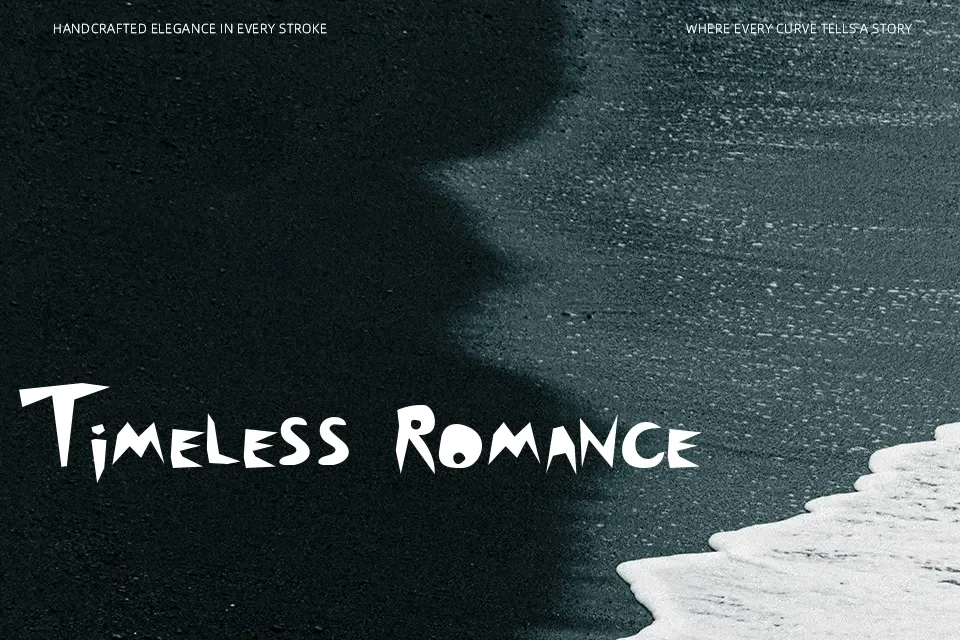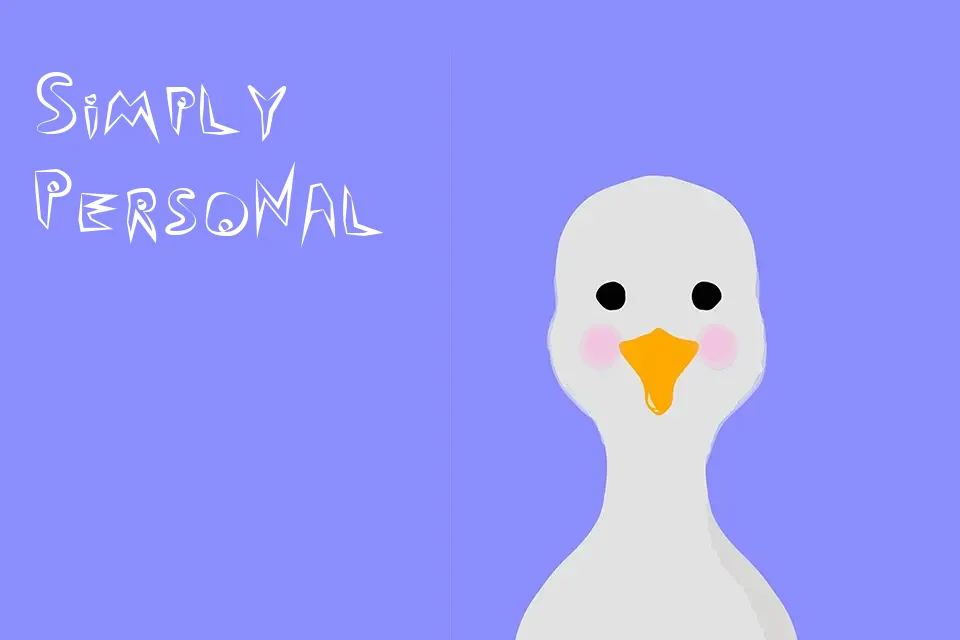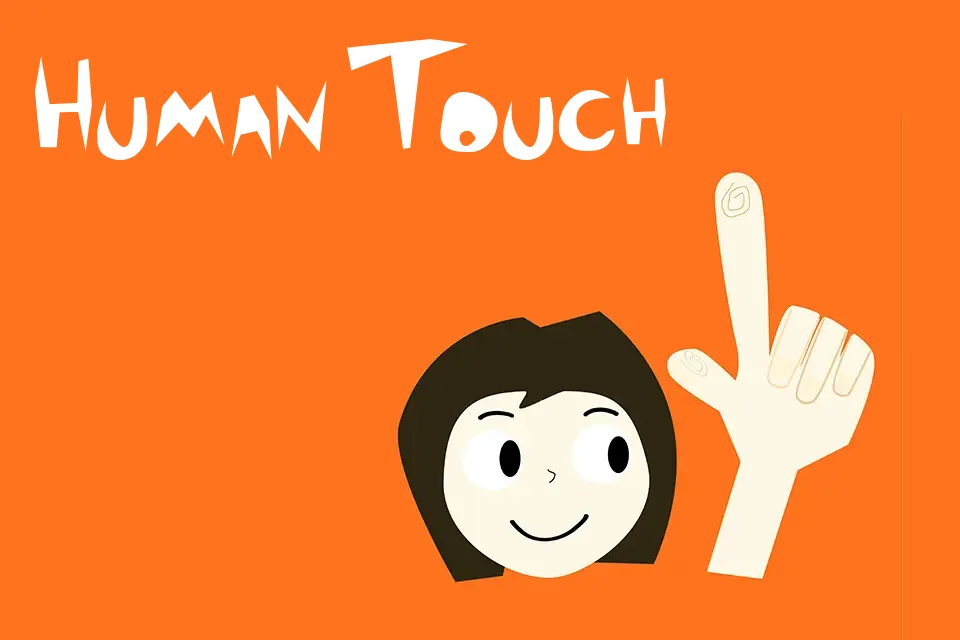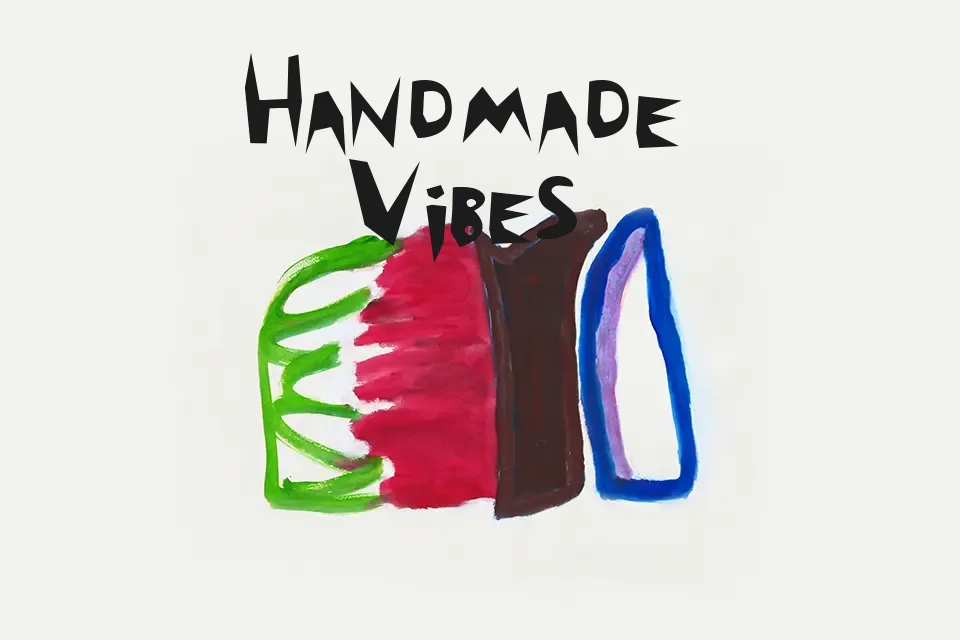
Outback Font
Outback Font uses uneven hand-drawn outlines, rounded curves, and deliberately irregular proportions to create a loose cartoon appearance. Its strokes have a rough, sketchy edge rather than a polished, uniform finish, while the generally open forms keep individual letters recognizable in larger settings. Uppercase and lowercase characters share the same casual rhythm, and the numerals follow the informal construction. The font works best for short, high-visibility text such as children’s event posters, illustrated labels, or playful social graphics. Its irregular details give headlines personality, but they become distracting in small sizes and sustained reading.
Best For: children’s event posters,playful product packaging,illustrated social media graphics,casual logo concepts
Perfect for kids, logo, and packaging, with a creative and cartoon style.